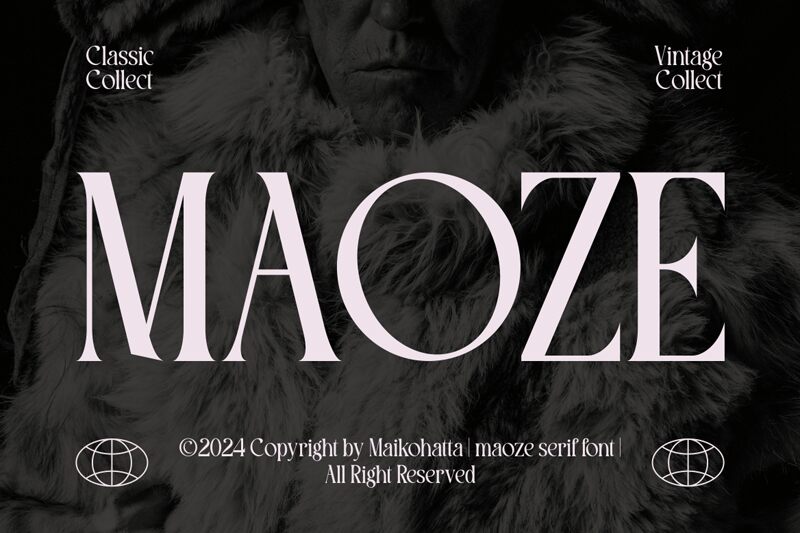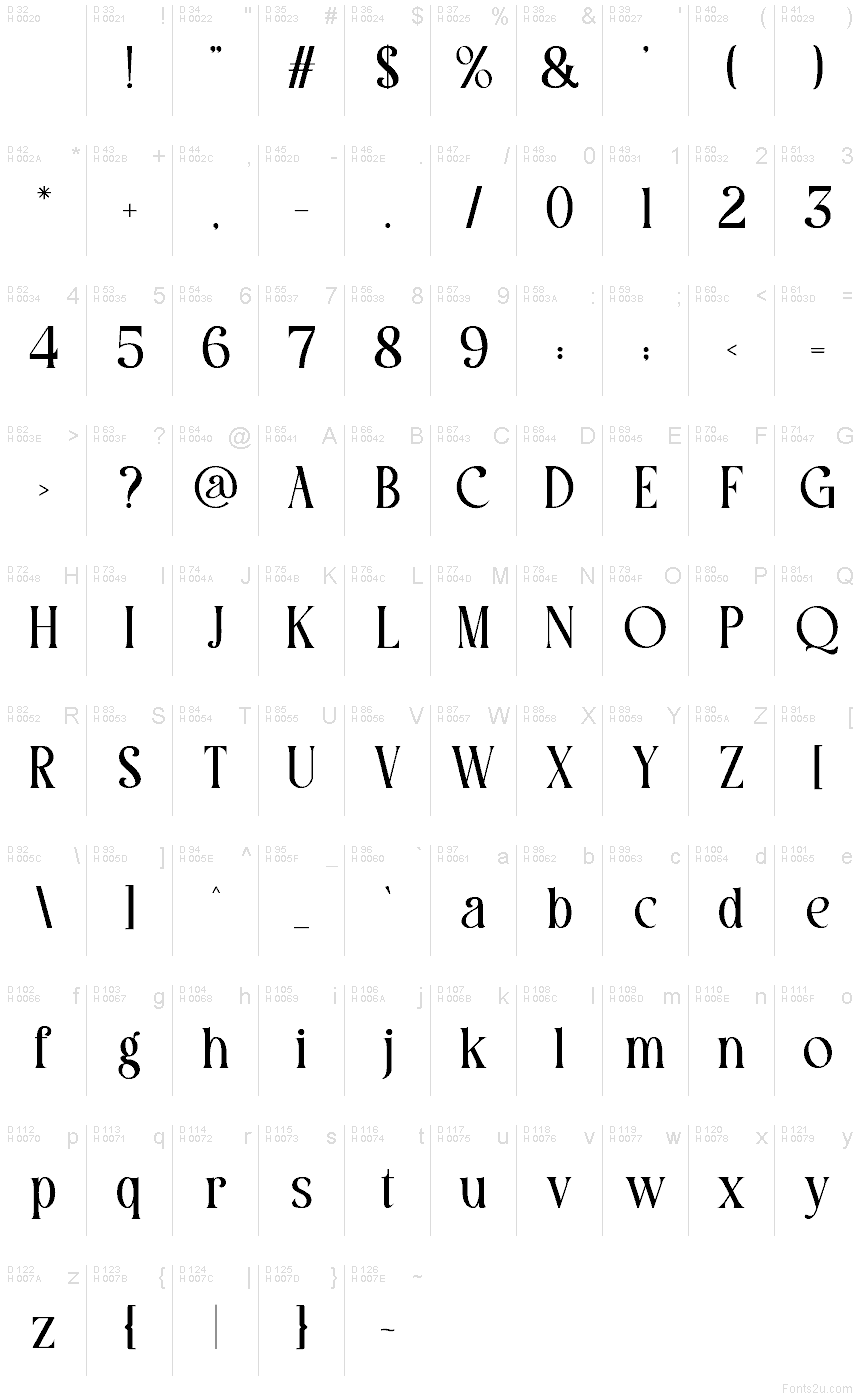
MAOZE
Maoze font by Gilang Ternadho is a free serif typeface with a sculpted, couture edge. Its tall posture, sharp entry points, and smooth, inky curves create a striking rhythm that feels both editorial and artful. The letters carry clever carved cuts that catch the eye without turning fussy, giving headlines a luxe snap while staying readable.
Using Maoze, titles land with presence on fashion branding, magazine covers, posters, packaging, event invitations, and bold logos. This free font shines at larger sizes where its nuanced shaping can breathe; pair it with a clean grotesk or geometric sans for body copy to keep the focus on Maoze’s dramatic silhouette.